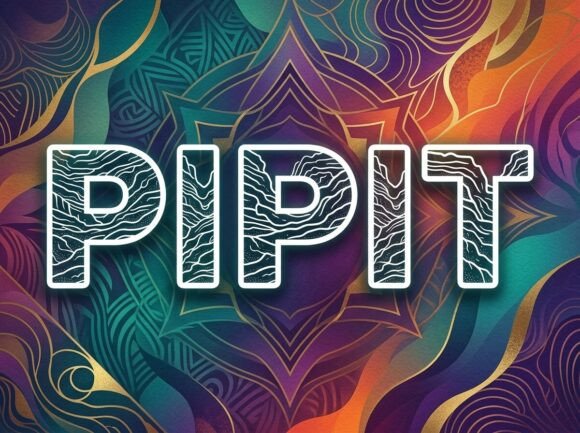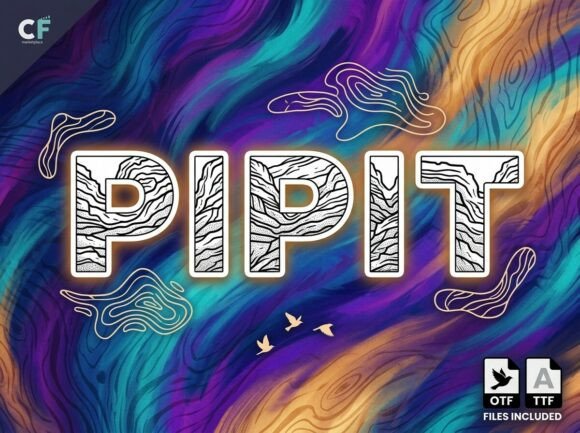
Introduction to Pipit Font
As a designer, have you ever stumbled upon a moment of creative clarity where everything falls into place? You’re brainstorming ideas for a new project, and suddenly, a font catches your eye. Its unique artistic elements and bold personality spark inspiration, and you know you’ve found the perfect match. For many creatives, that moment is exactly what the Pipit Font is all about.
With its high-quality design and transparent background, this stunning decorative display font is a valuable resource for any creative project. Whether you’re working on a bold headline, artistic logo, or creative packaging, the Pipit Font is sure to make a lasting impression. And the best part? It’s available for download, making it an essential design resource for any project.
Honest Review: Pipit Font
As a designer, I’m always on the lookout for high-quality fonts that can elevate my creative projects. The Pipit Font caught my attention with its unique and elegant design. One of the standout features is the transparent background, which makes it easy to overlay on images or use as a standalone element.
- ✨ High-quality design: The Pipit Font is well-crafted and looks great in various font sizes and styles.
- ✨ Flexibility: The font is suitable for a wide range of creative projects, from web design to print materials.
While the Pipit Font excels in many areas, there are a few limitations to consider:
- ⚠️ Limited character set: The font may not support all languages or special characters, which could be a issue for certain projects.
- ⚠️ Not suitable for small text: Due to its elegant design, the font may not be ideal for small text sizes, where readability could be compromised.
Overall, I’m impressed with the Pipit Font’s design and versatility. It’s a great addition to any designer’s toolkit, and I’d definitely recommend it for creative projects that require a touch of elegance and sophistication.
Pipit Font
Pipit Font is a high-quality design resource ideal for creative projects that require a unique and elegant touch. With a transparent background, this font is perfect for adding a touch of sophistication to your designs.
Tips for Getting the Most Out of Pipit Font
To get the most out of Pipit Font, experiment with different font sizes and styles to create a unique look. Use the transparent background to create a sense of depth and dimension in your designs.
Pipit Font is perfect for creative projects such as wedding invitations, branding materials, and social media graphics. It’s also a great choice for designers who want to add a touch of elegance to their designs without breaking the bank.